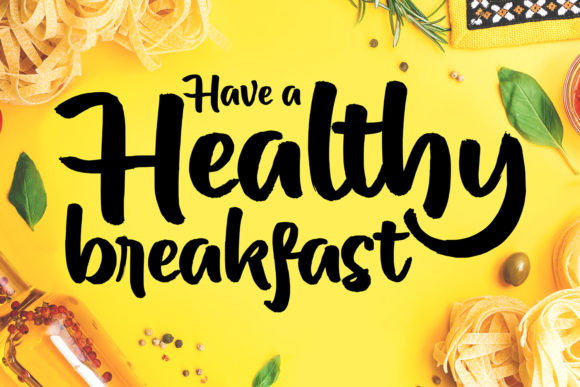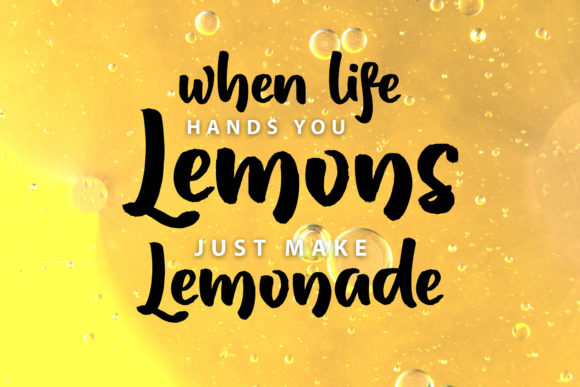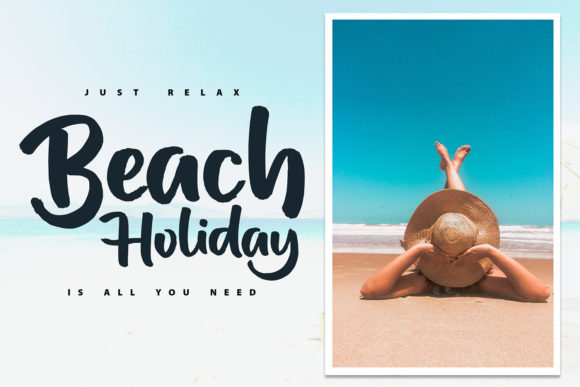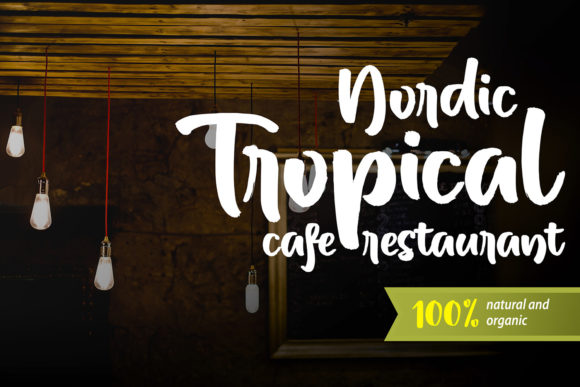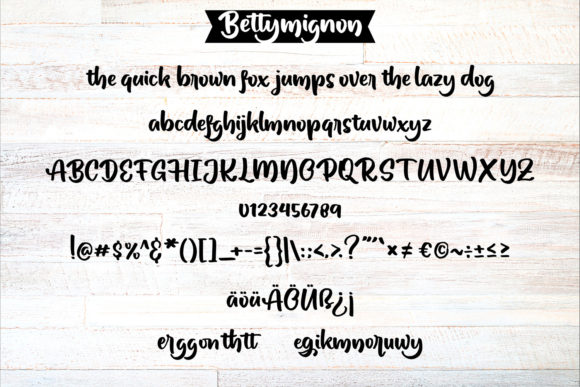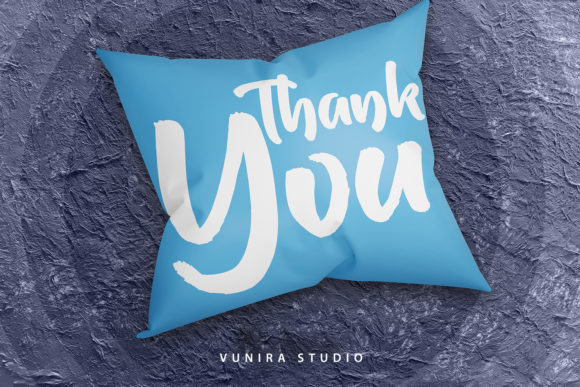
Introduction to Betty Mignon Font
Betty Mignon is a bold and brushed handwritten font.
Fall for its ravishing style and use it to create gorgeous wedding invitations, beautiful stationary art, eye-catching social media posts, and much more .
Key Features of Betty Mignon Font
Why Choose Betty Mignon Font?